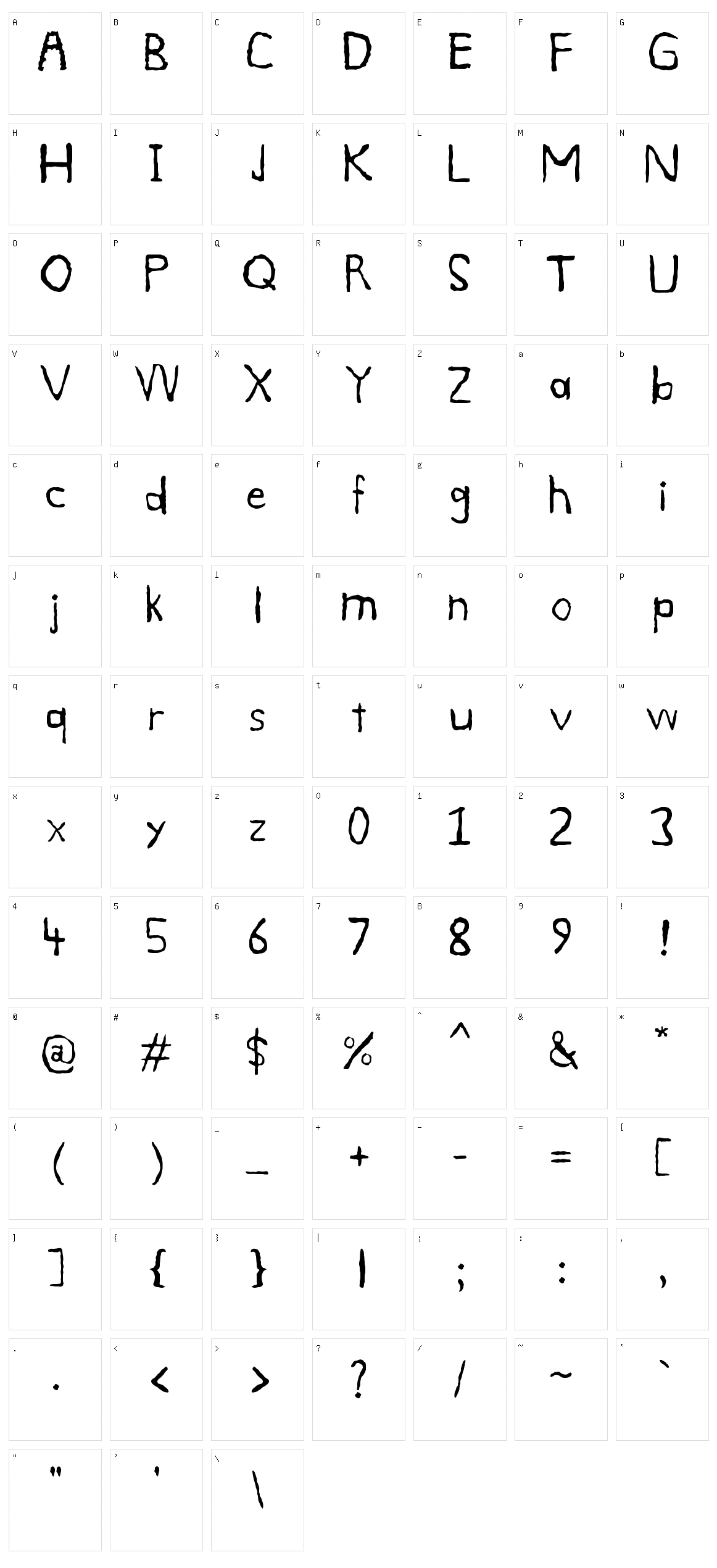
The free font Smudge is carefully designed by Andrew Nordquist, showcasing a thoughtful balance of creativity and usability and falls under the Cartoon font style. When you download the ZIP file, it contains only 22.33 KB of font files, making it lightweight and quick to download. Please review the license details below to understand permitted usage and distribution rights. If license information is not available, we recommend using this font for personal projects only or contacting the author directly for commercial usage permissions.